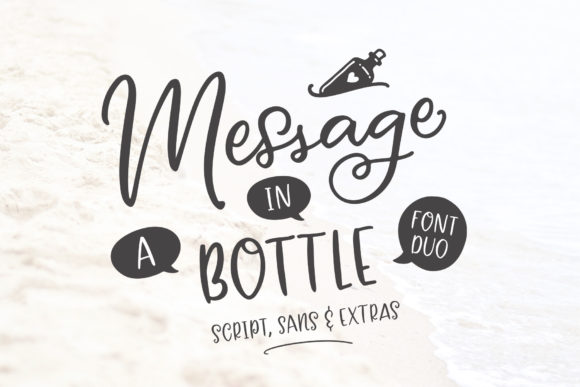
Voyage into the realm of heartfelt expression, where words dance upon the page in enchanting harmony. Discover "Message in a Bottle Duo Font" - a font family crafted with meticulous care, capturing the essence of intimate communication. Allow your designs to radiate with the warmth and authenticity of handwritten notes.
As you embark on your creative journey with Message in a Bottle, let your messages unfurl like whispers carried by the gentle breeze. Each letter, meticulously shaped by Ayca Atalay, is a testament to the power of heartfelt connection. This font duo is not merely a collection of characters; it's a symphony of emotions, ready to resonate with your audience.
Unleash your imagination and watch as Message in a Bottle transforms your designs into captivating tales. Its script style exudes a touch of playfulness, inviting your readers to engage with your content on a deeper level. Whether you're crafting heartfelt invitations, heartfelt letters, or enchanting designs, Message in a Bottle becomes your trusted companion, adding a layer of genuine connection to every project.
Embrace the allure of Message in a Bottle and watch your words blossom into something truly extraordinary. Its timeless quality ensures that your creations remain relevant and captivating, transcending the boundaries of time. Experience the joy of crafting messages that resonate with your audience, leaving a lasting impression that lingers in their hearts.
Choose Message in a Bottle Duo Font today and unlock the gateway to heartfelt expression. Let your designs speak volumes, capturing the essence of human connection and leaving an indelible mark on the world. Dive into the world of authentic communication and experience the magic that unfolds when your messages take flight.